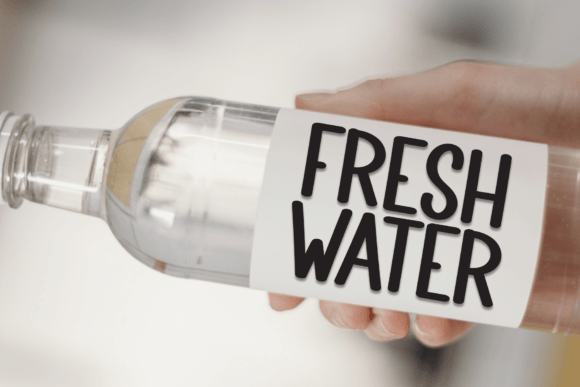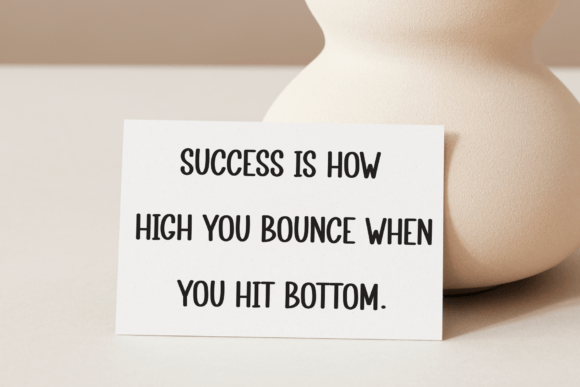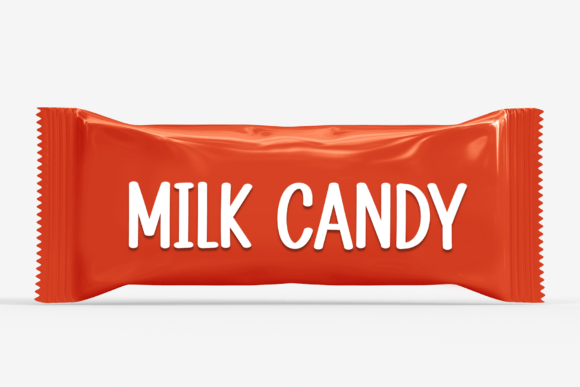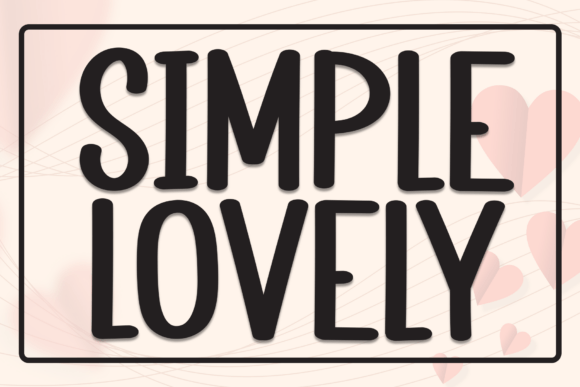
Introduction to Simple Lovely Font
Simple Lovely is a sweet and friendly handwritten font.
Why Choose Simple Lovely Font?
Simple Lovely Font offers exceptional quality and versatility, making it a valuable addition to your design toolkit. Whether you’re creating for personal projects or commercial use, Simple Lovely Font delivers professional results.